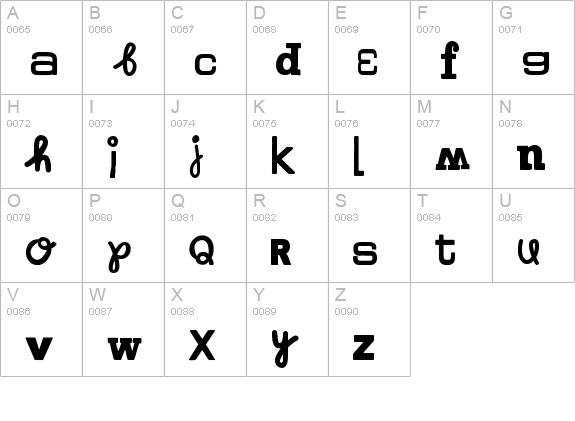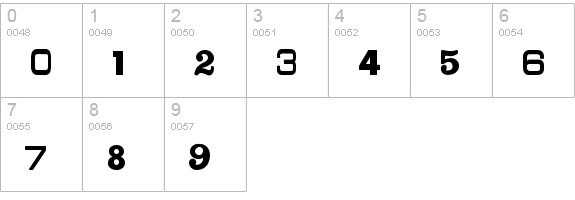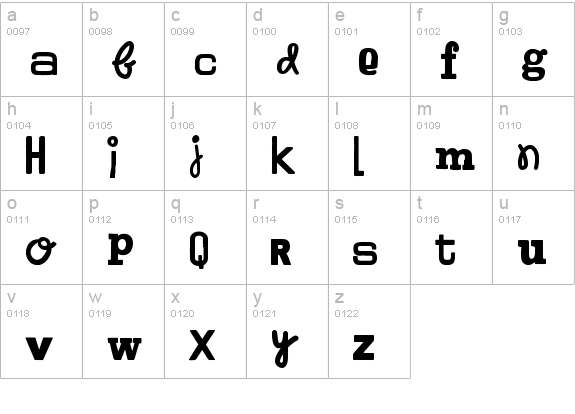
Elise Font Details
Introducing Elise font, a beautifully crafted typeface that exudes elegance and sophistication. With its graceful curves and stylish design, Elise is perfect for adding a touch of class to your projects. This versatile font is ideal for a wide range of applications, from branding and packaging to invitations and social media graphics. What sets Elise font apart is not only its stunning aesthetics but also its accessibility. This premium font is available for free download at FontsMarket.com, making it easy for designers and creatives to elevate their work without breaking the bank. Whether you're working on a professional project or a personal passion project, Elise font is sure to impress with its timeless appeal and effortless charm. Download it today and see the difference it can make in your designs!